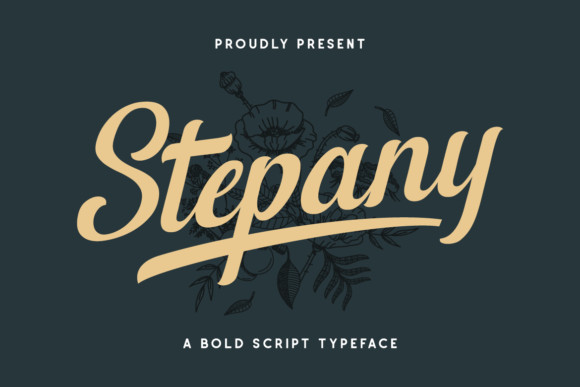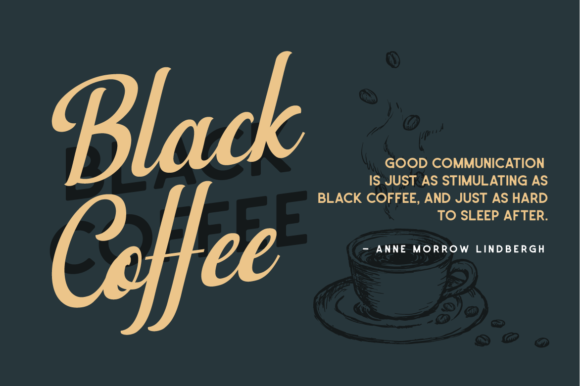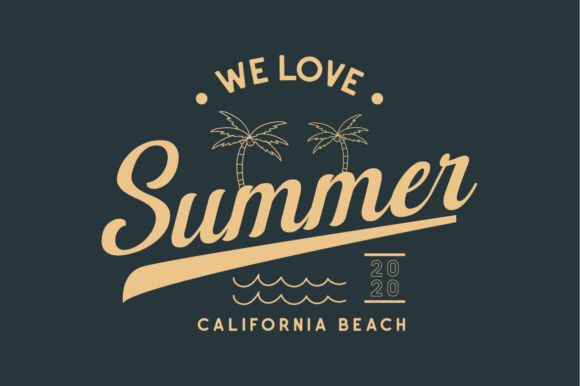
Stepany Font
Stepany is a hand-lettering brush script font with natural feel.Whether you’re looking for fonts for Instagram or calligraphy scripts for DIY projects, Stepany will turn any creative idea into a true piece of art!